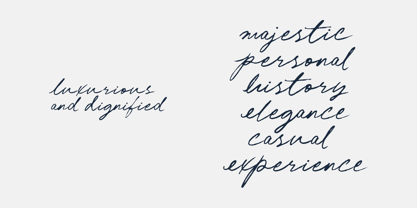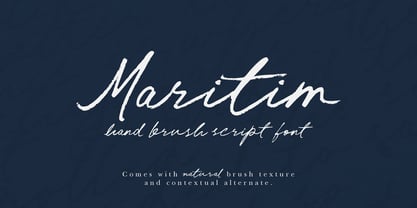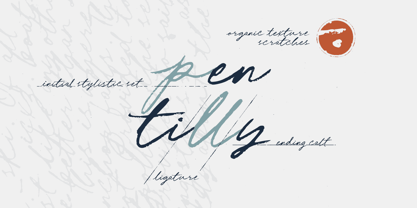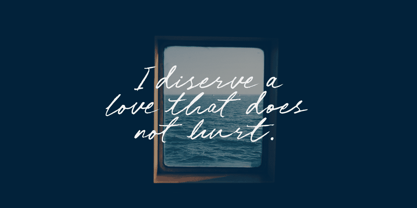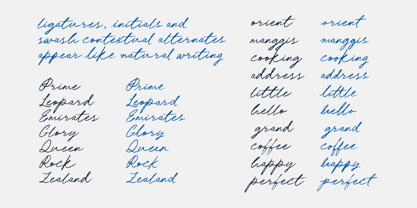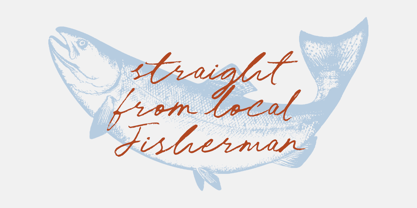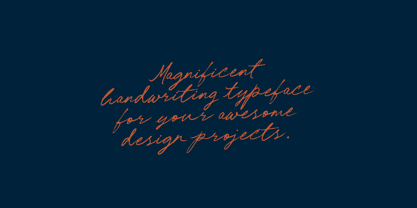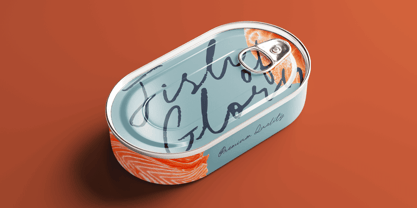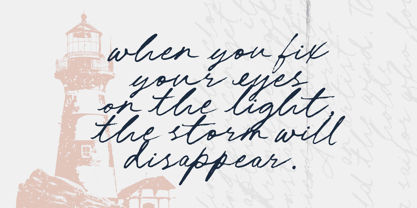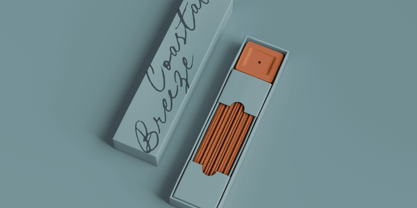
Maritim
by Atom
The Maritim Font Family was designed by Eko Kurniawan and published by Atom. Maritim contains 1 styles. More about this family
Maritim is hand-drawn using ink that is scratched on paper and digitized, resulting in a natural and organic impression. It is very suitable for use in various contexts that require an elegant and exclusive impression. For example, on wedding invitations that want to convey a romantic and elegant impression, on certificates that give an authoritative and formal impression, or on important event posters that require a strong visual appeal. Maritim is also ideal for luxury product branding that wants to convey an impression of high quality and perfection.
Having extraordinary flexibility, it can be applied in various modern and traditional designs without losing its classic essence. The luxury and firmness of each letter character makes it easy to adapt to various design styles, making it the right choice for any project that requires beautiful and meaningful handwriting.
Atom is a line from Letteratom created by a young man from a small village in Indonesia named Eko Kurniawan. Since school, he was interested in graphic design and lettering, so both have become his hobbies since then. Starting from a sketch from paper and digitizing the glyphs one by one to create a font with his style. Focus on script fonts and brushes for your design needs.